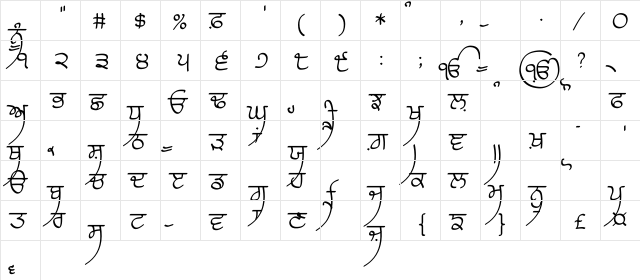
Raaj 5 Medium Regular
| Foundry | Paul Alan Grosse |
| Designer | Paul Alan Grosse |
Design Context for Raaj 5 Medium Typeface
Raaj 5 Medium takes a measured approach to typography — its balanced proportions and neutral character make it a reliable workhorse for both digital and print work.